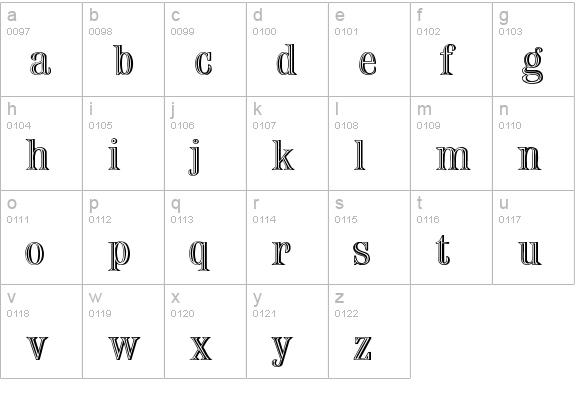
Nauert font is a modern and elegant typeface that exudes sophistication and style. Its clean lines and sleek curves make it perfect for a wide range of design projects, from branding to editorial work. The versatility of Nauert font allows it to be used in both digital and print applications, making it a valuable asset for any designer or creative professional. What sets Nauert font apart is not only its timeless design but also the fact that it is available for free download at FontsMarket.com. This means that you can easily access this high-quality font without breaking the bank, making it a fantastic option for budget-conscious designers looking to elevate their projects. Whether you're working on a logo, website, poster, or any other design project, Nauert font is sure to make a lasting impression. Download it for free today and see for yourself the impact this stunning typeface can have on your work.